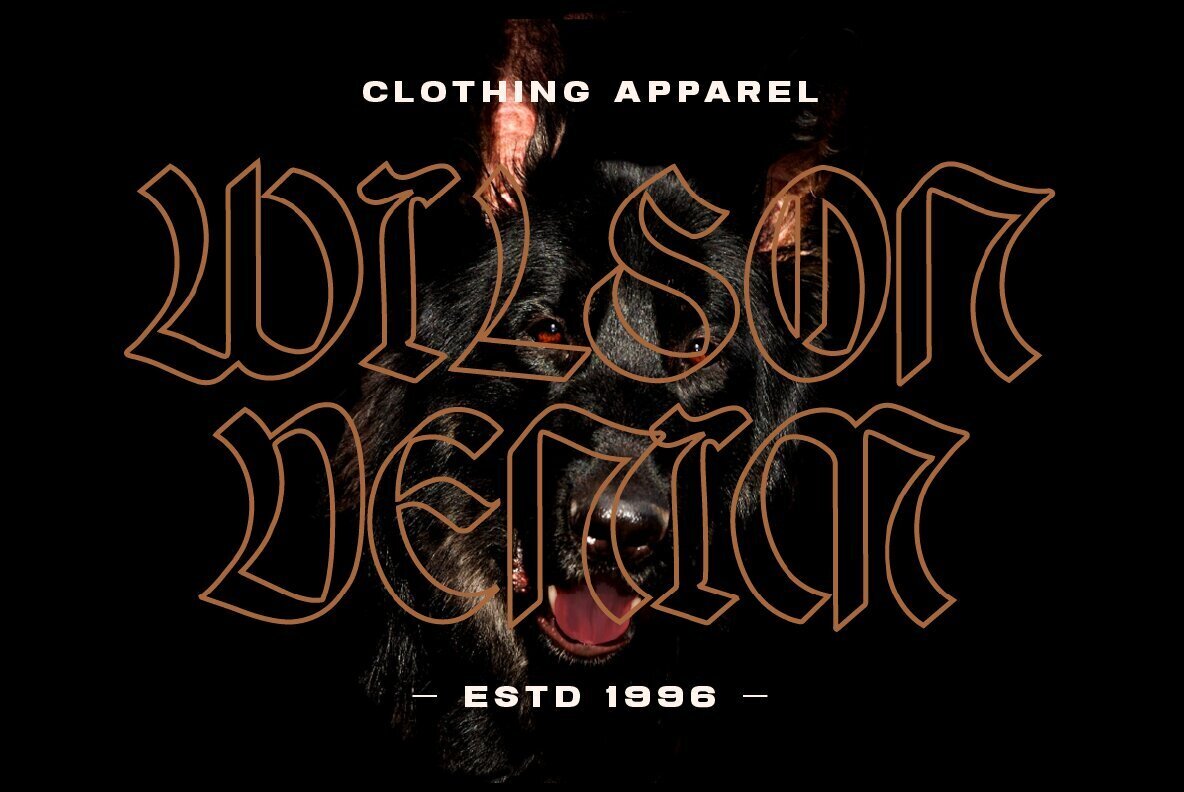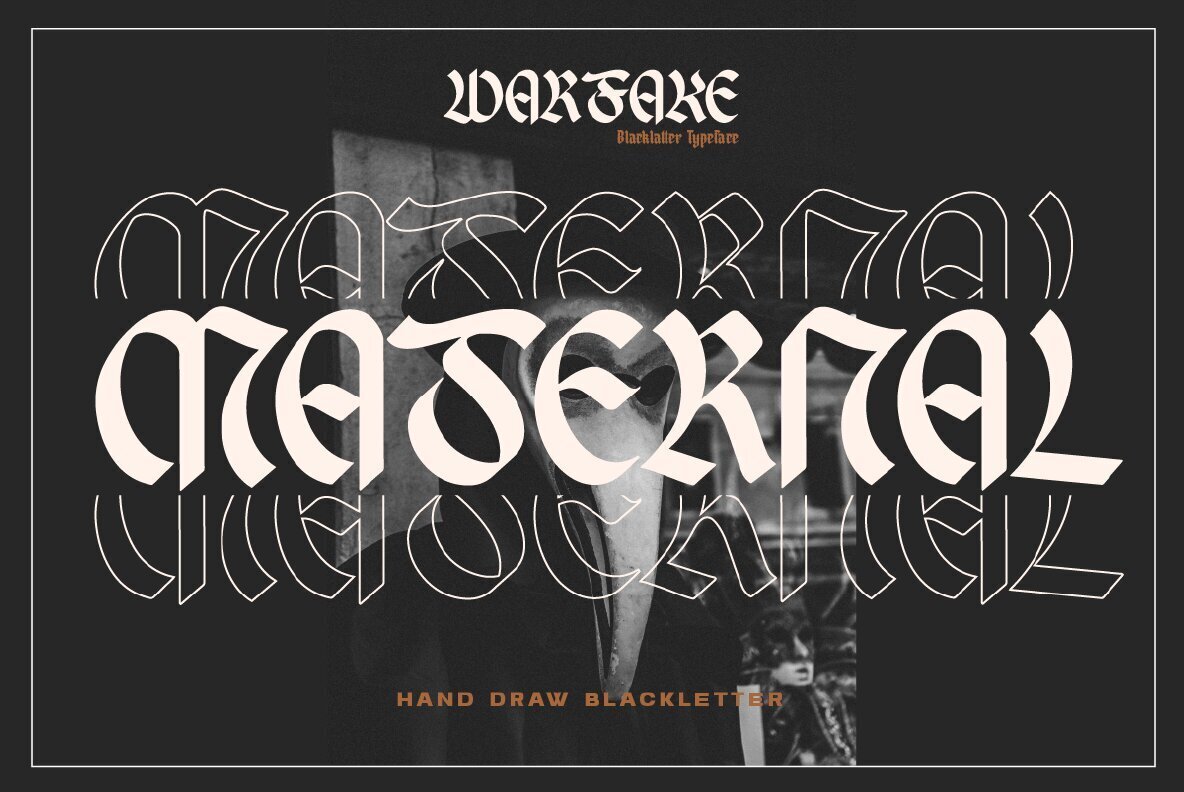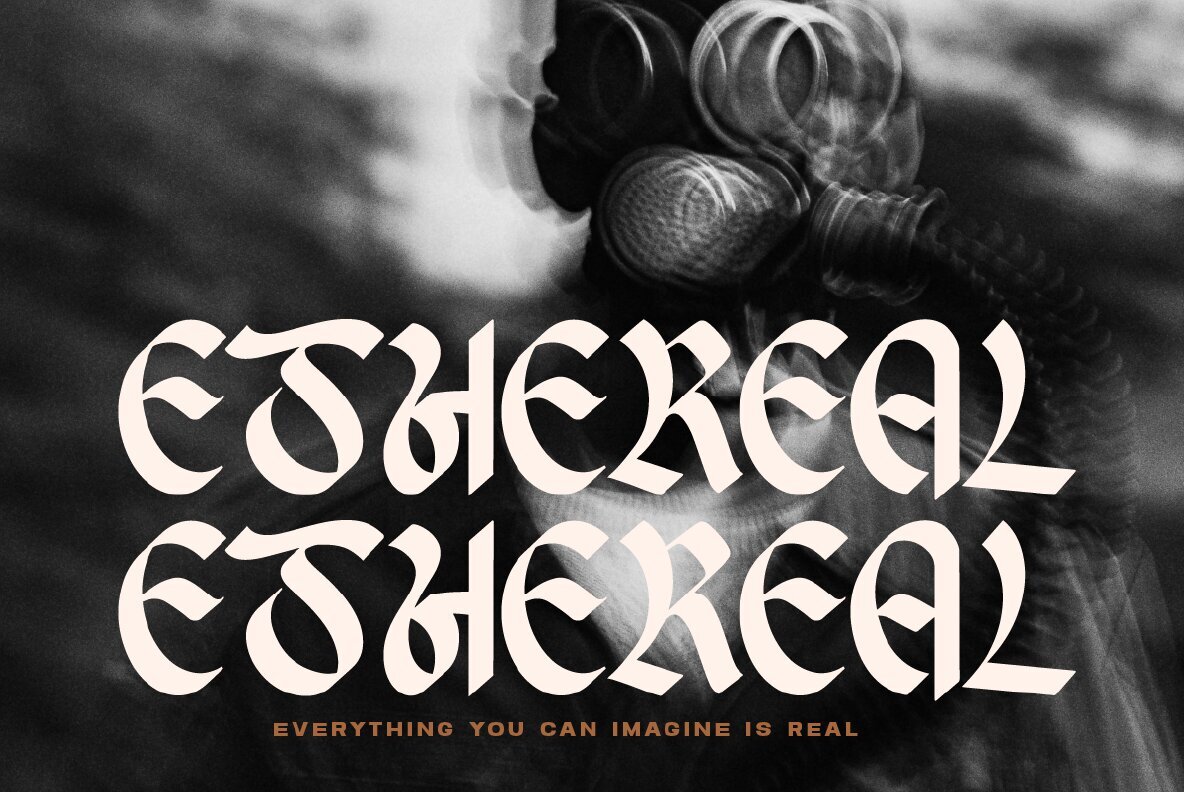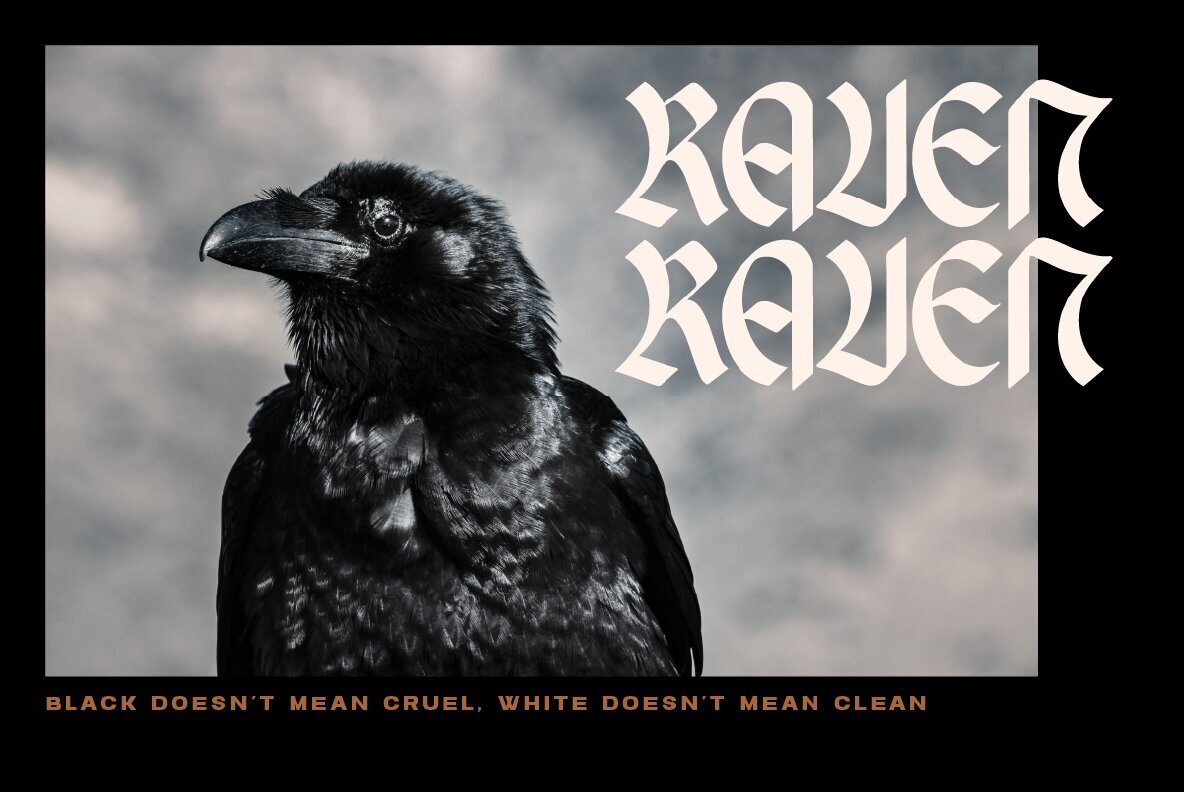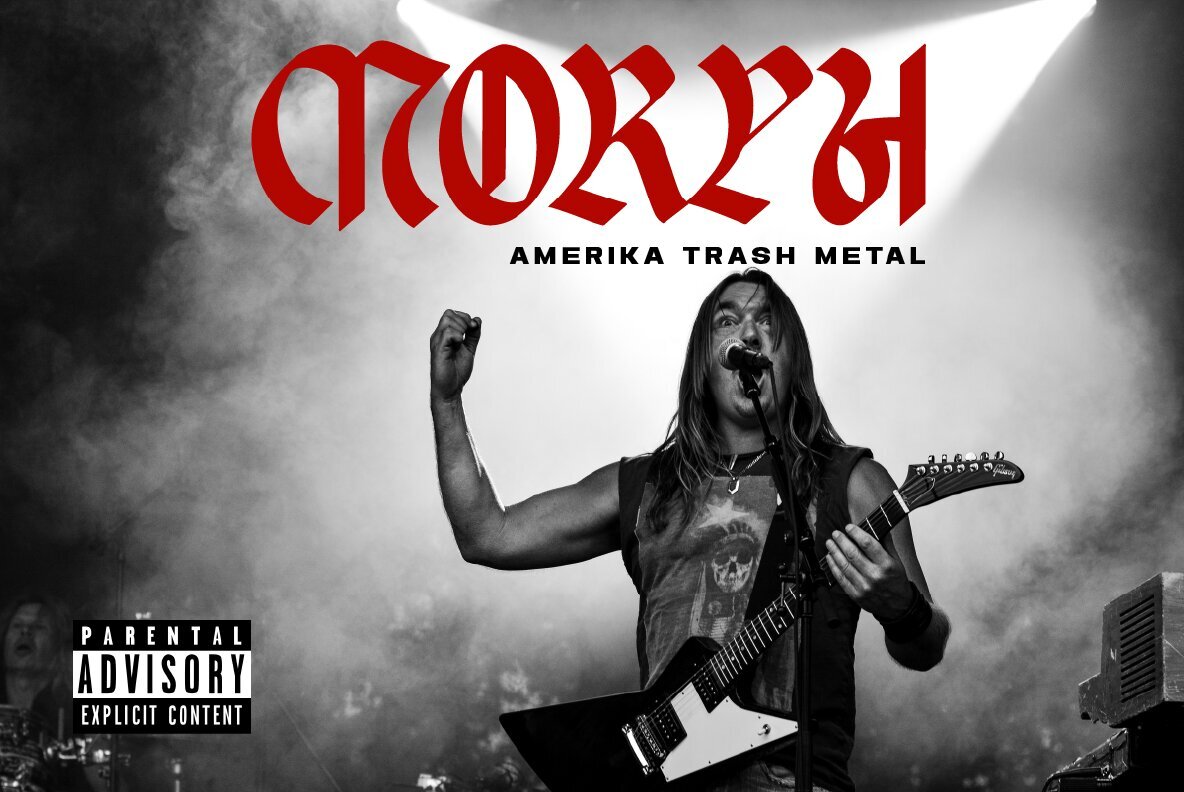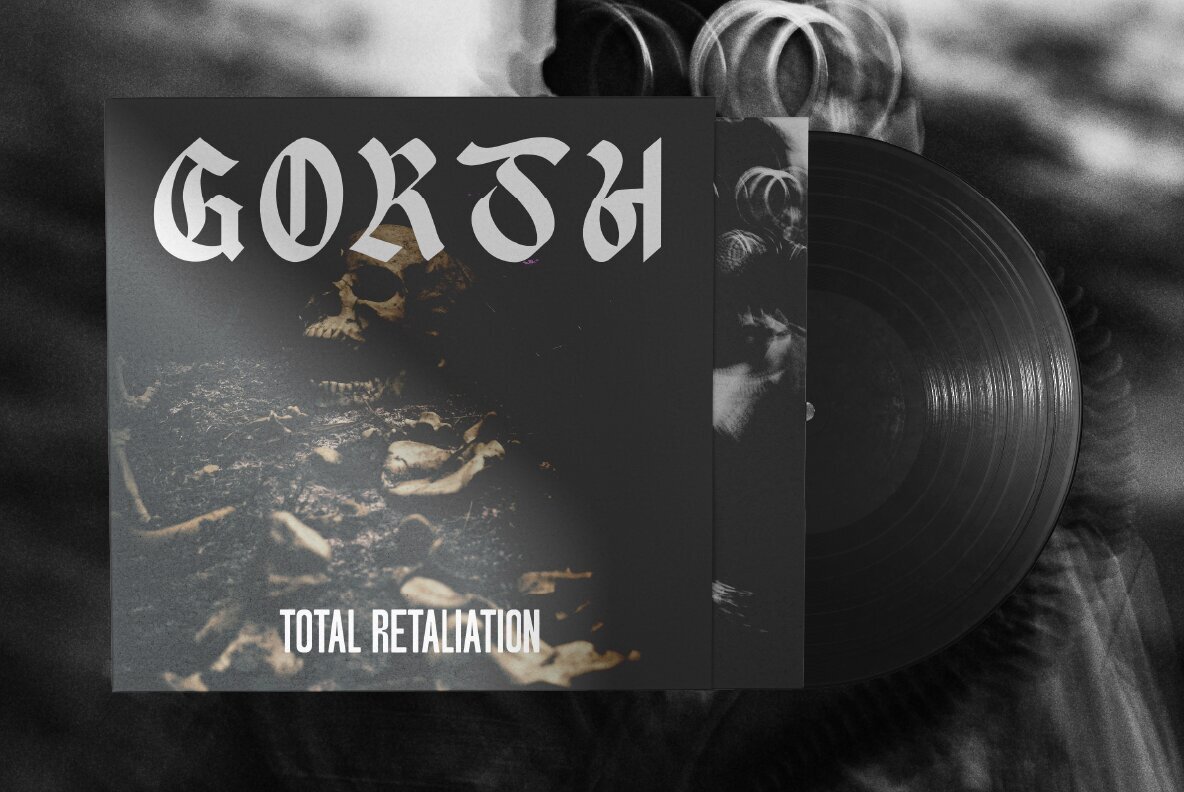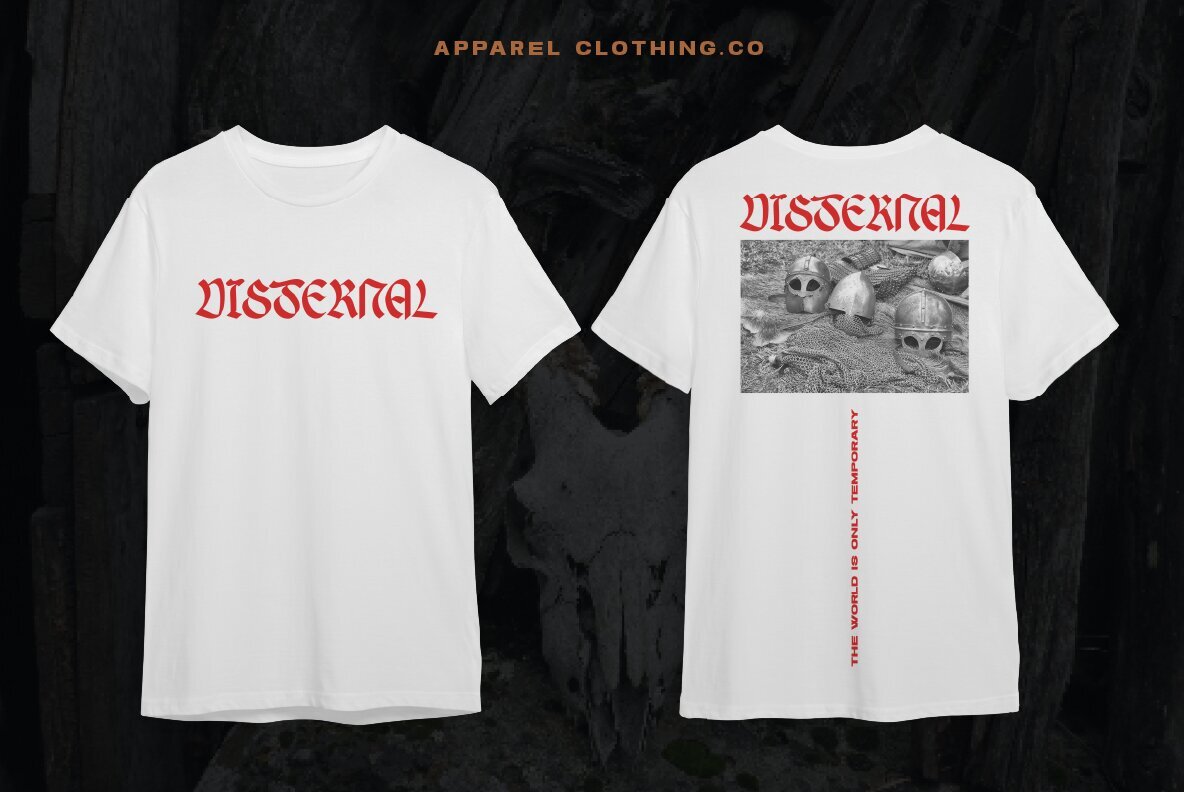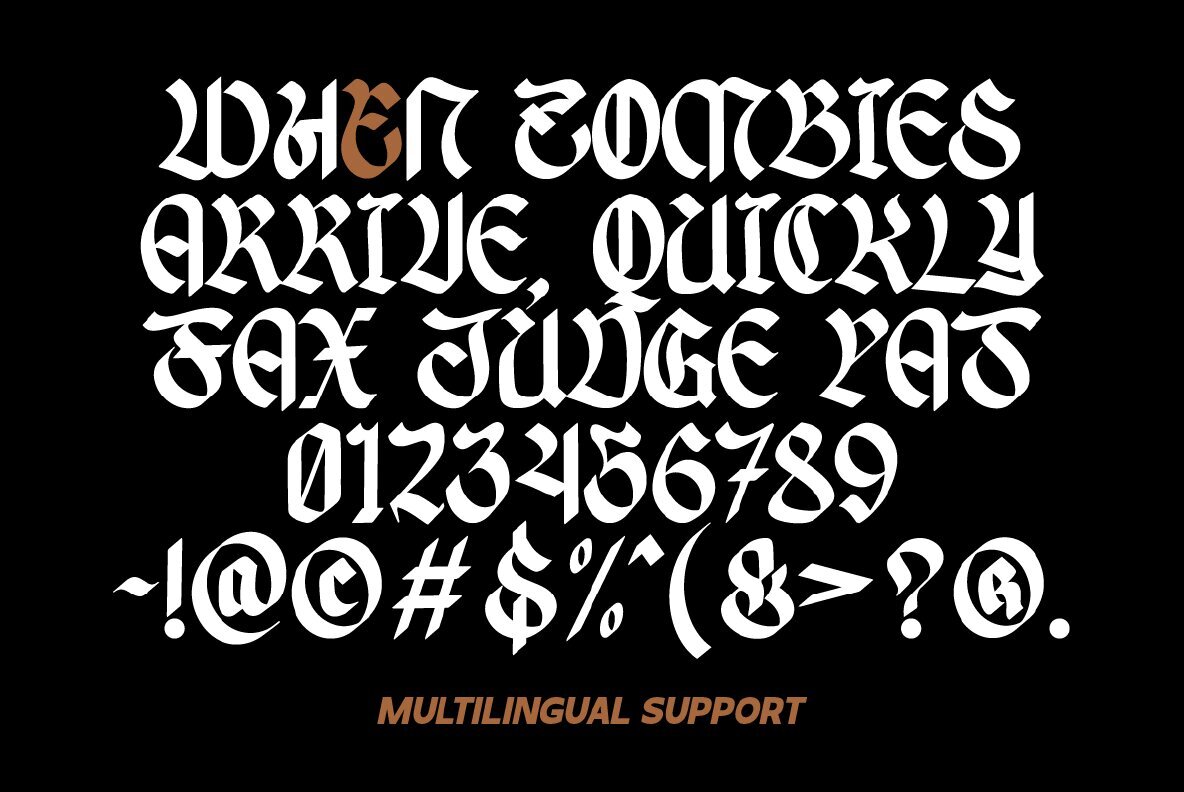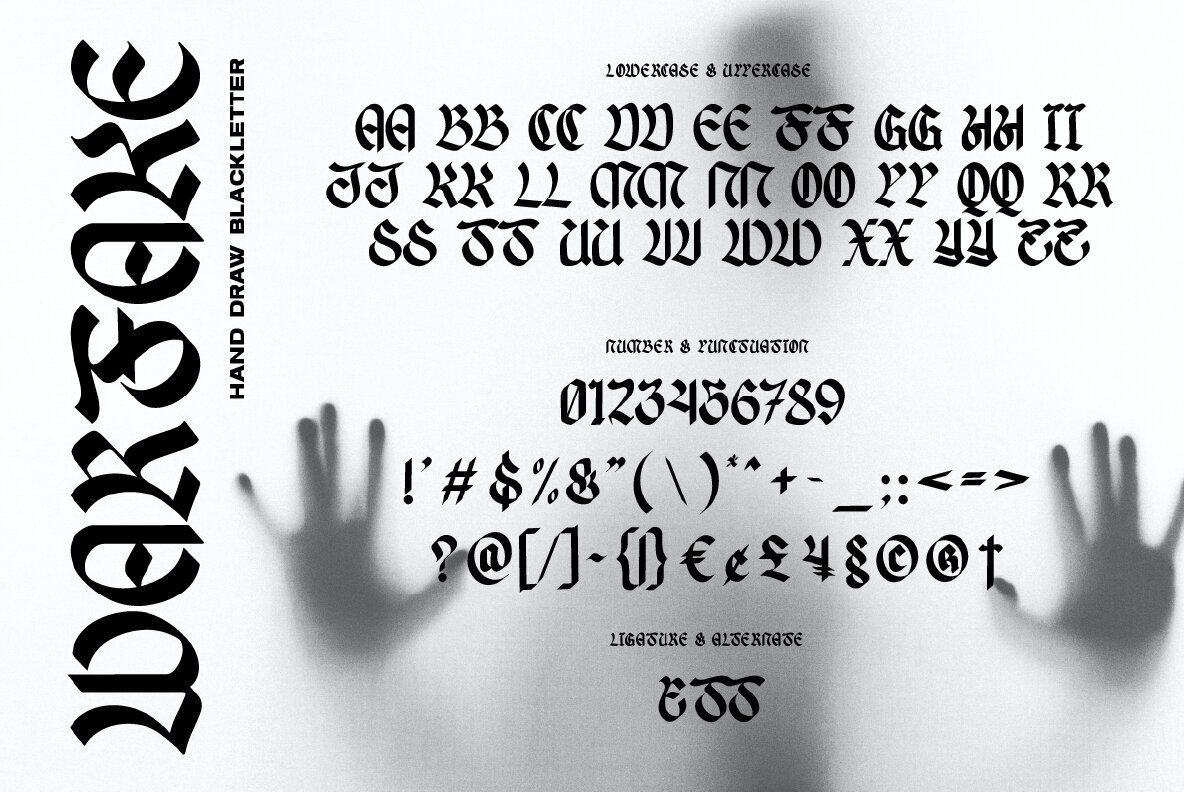
Warfake Font
expand_font Warfake Font Introducing Warfake: A striking blackletter typeface that redefines modern design, with its bold contrast and versatile features, perfect for un... SKU T19084 Blackletter,Black Lettering,Hand Draw Blackletter,Ghotic,T-shirt,Apparel,Bold,Old English,Black,Fancy,Elegant,Logo,Cover,Movie,Stylish Logo,Calligraphy,Webfont,Modern Calligraphy,Hipster,Lettering,Hand Lettering,Vintage,Rounded,Retro,Vintage,Corporate,Flyers,Headings,Apparel,Victorian,Logtype,Tattoo,Beer,Label,Whiskey,Wine,Metal,Rock Explore Exceptional Fonts for Digital and Traditional Media Fontpath offers a large variety of fonts for every designer, all at affordable prices and in multiple formats. Browse our best in class fonts today for all your creative needs, you can find everything you need right here at our site! Fonts,sans,sans serif,retro,script,decorative,title,FontPath 20140312040223 Fontpath offers 200,000+ of the most professional fonts found online, start downloading today! Real-Time Font Discovery at Fontpath